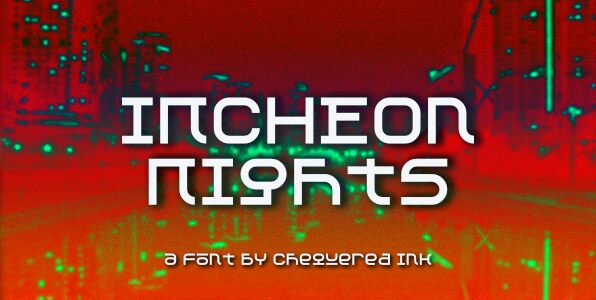
Incheon Nights Regular
Incheon Nights is a striking Japanese-style font designed by Chequered Ink. With its semi-light weight and expanded width, Incheon Nights is perfect for creating captivating and modern designs that evoke a sense of mystery and intrigue. This font is ideal for projects such as book covers, posters, branding, packaging, and social media graphics. Its unique style adds an exotic touch to any project while keeping the overall design clean and legible. Whether you're designing for a fashion brand or a restaurant, Incheon Nights will bring your vision to life with its bold yet elegant aesthetic.